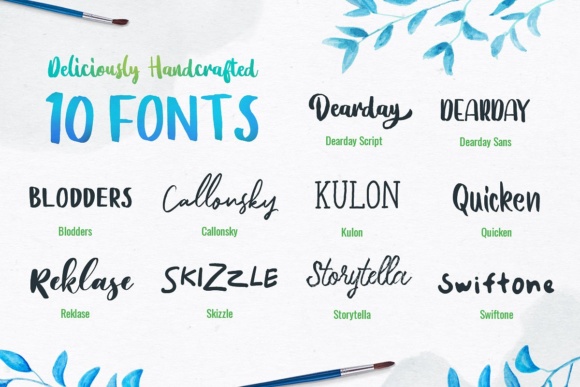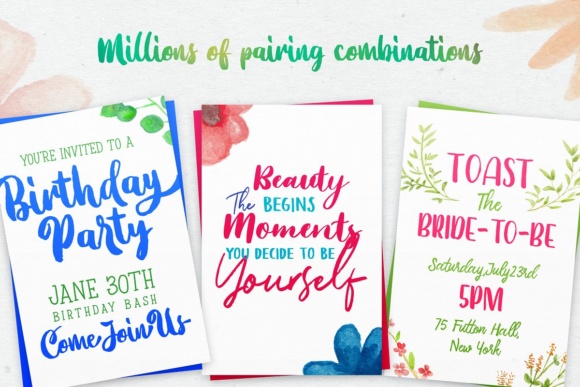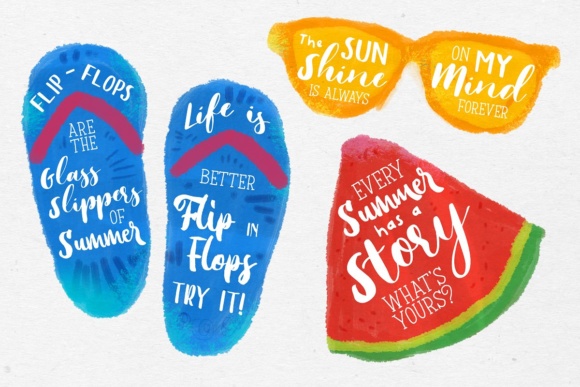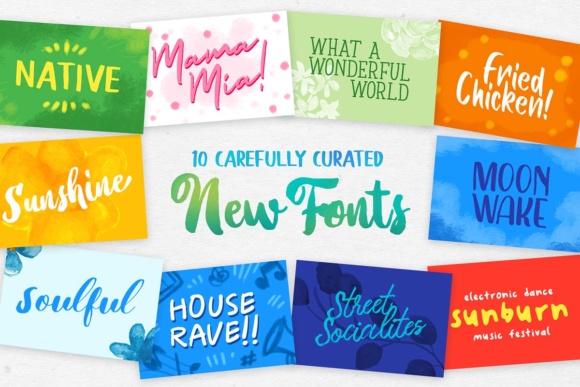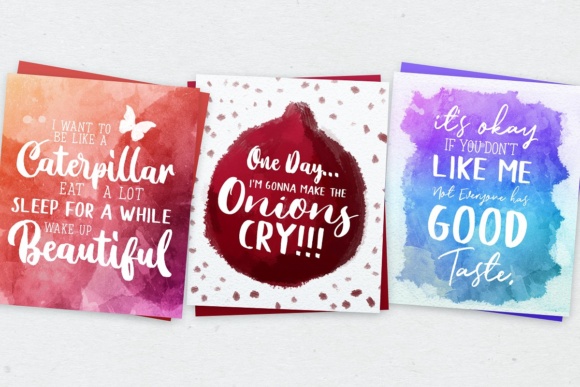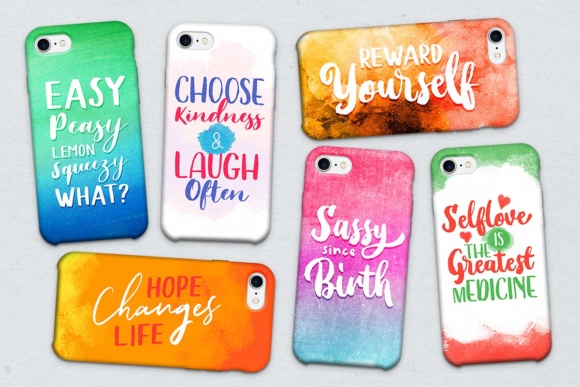
Introduction to DearDay Font
This product contains 10 unique fonts and 65 hand-drawn watercolor illustrations in png.
Yeah you hear it right This product will provide anything you need to create a lovely watercolor art design.
DearDay Font offers exceptional quality and versatility, making it a valuable addition to your design toolkit. Whether you’re creating for personal projects or commercial use, DearDay Font delivers professional results.